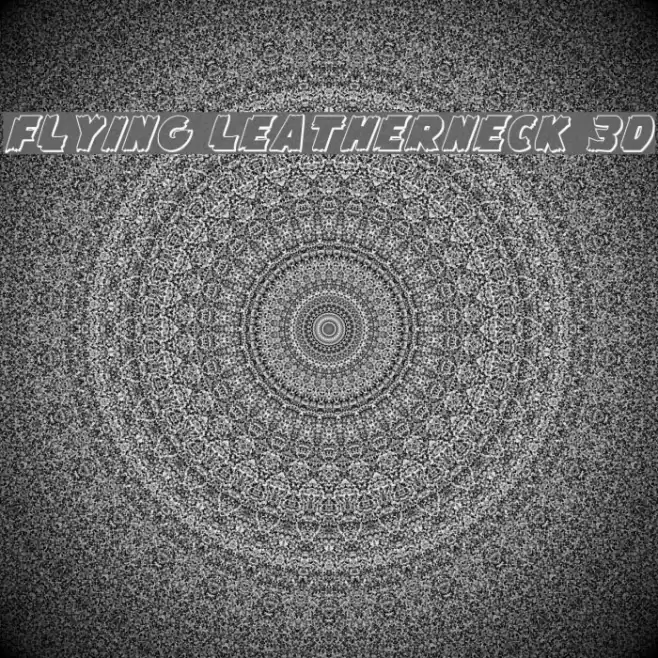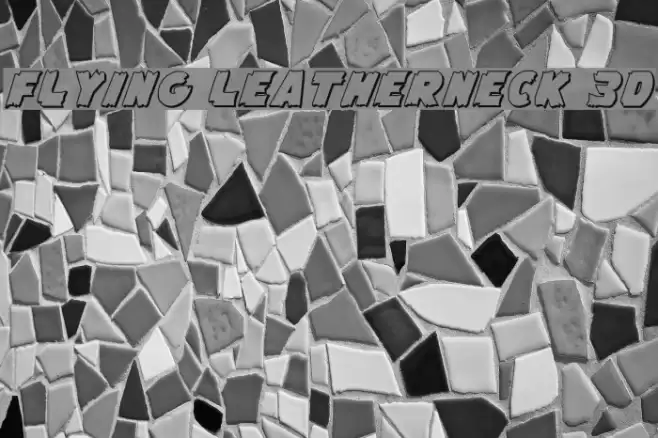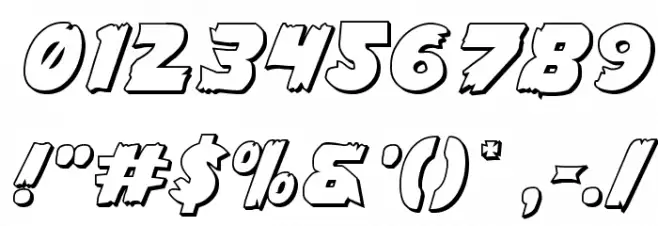
Flying Leatherneck 3D Font
Flying Leatherneck 3D Description
This font features a bold and dynamic 3D effect, with each character appearing to leap off the page. The design is characterized by sharp, angular edges and a rugged, distressed texture that adds a sense of movement and energy. The uppercase and lowercase letters maintain a consistent style, with the numbers and special characters following suit. The font's unique appearance makes it stand out, capturing attention with its bold presence and playful yet edgy aesthetic.
A bold, dynamic 3D font with sharp edges and a distressed texture from Uncategorized fonts.
- Proposed Projects: Ideal for projects requiring a bold statement, such as posters, video game titles, comic book covers, or any design needing a dynamic and energetic feel.